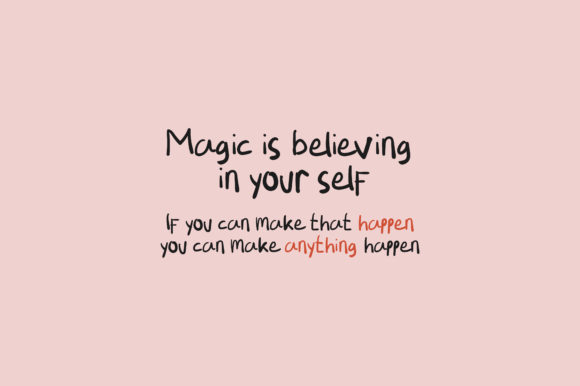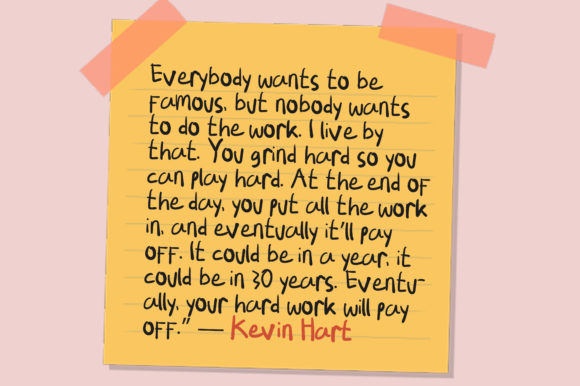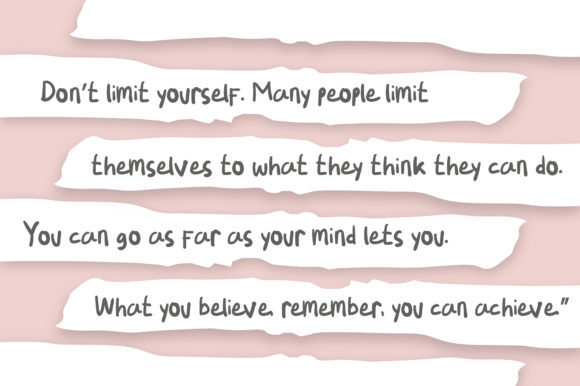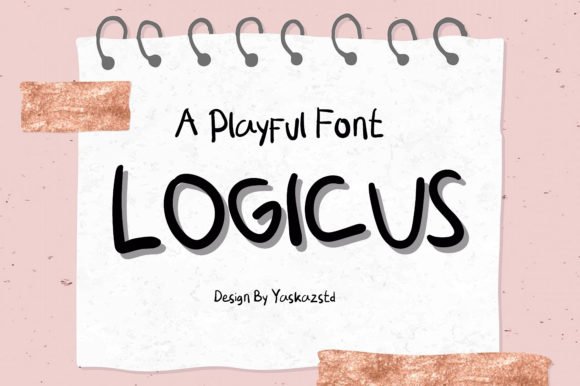
Introduction to Logicus Font
Logicus is a handwritten font that is written directly with a pen, very cute and fun suitable for making quotes, children’s posters, children’s book poster designs and fun designs supported with all English characters and standard punctuation and enjoy .
Key Features of Logicus Font
Why Choose Logicus Font?
Logicus Font offers exceptional quality and versatility, making it a valuable addition to your design toolkit. Whether you’re creating for personal projects or commercial use, Logicus Font delivers professional results.